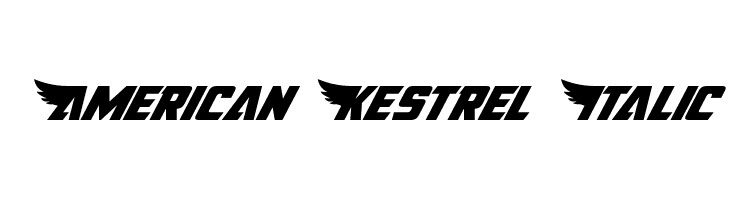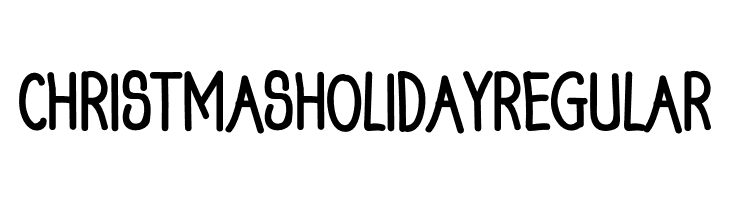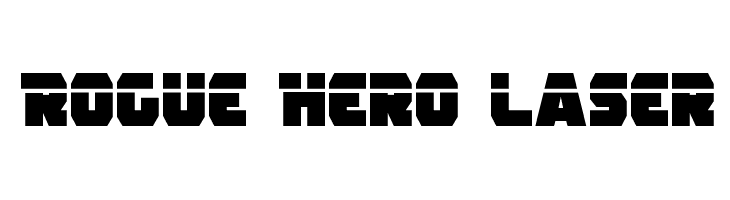
A bold, geometric font with a futuristic and industrial style.
A modern, geometric sans-serif font with clean lines and balanced spacing.
A bold, playful font with a 3D effect and dotted interior pattern.
A bold, italicized font with a halftone effect, perfect for modern and dynamic designs.
A playful, hand-drawn font with a whimsical and casual style.
A bold, geometric font with a playful, modern aesthetic and three-dimensional effect.
A bold, italicized sans-serif font with a modern and dynamic style.